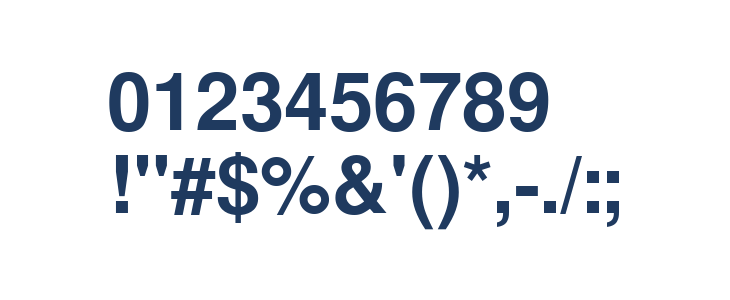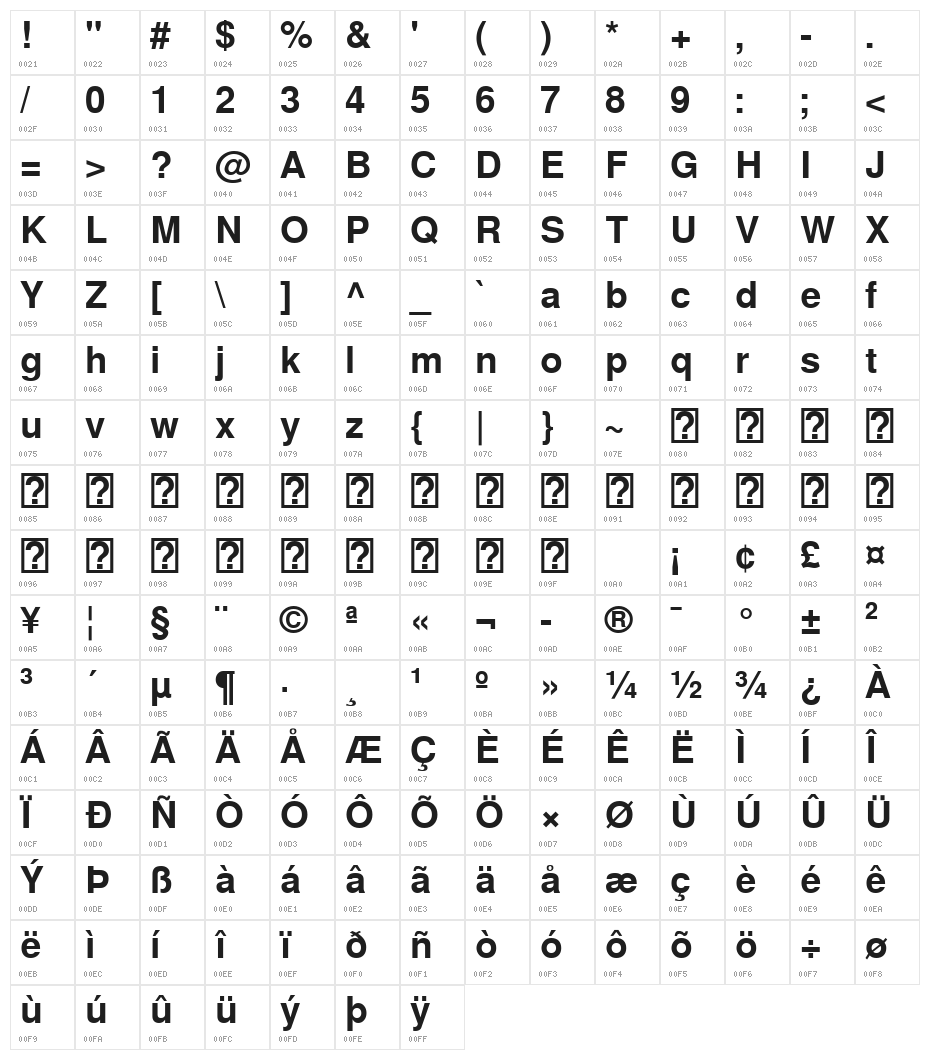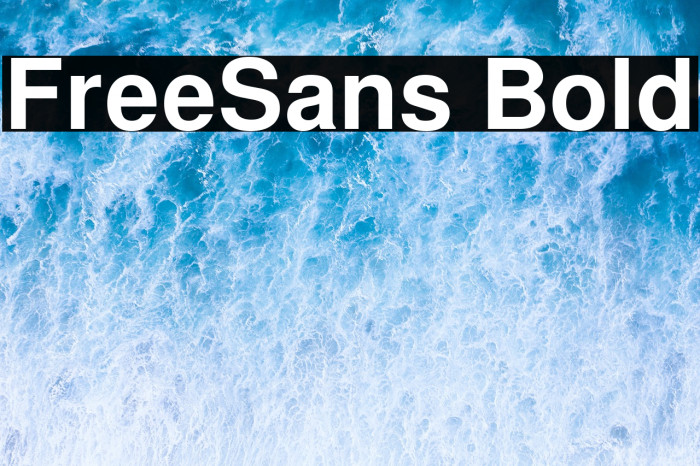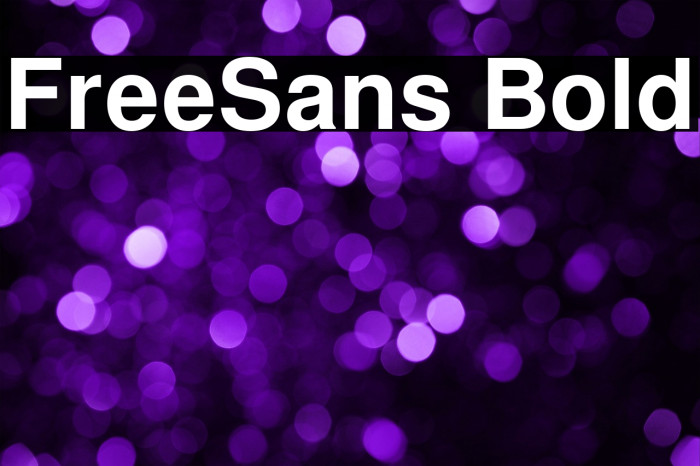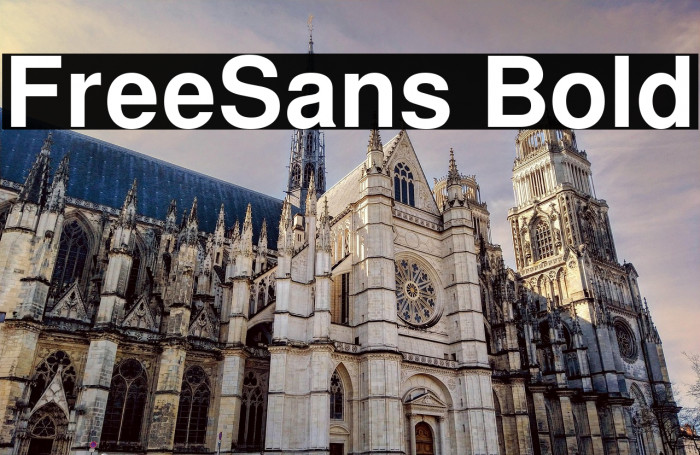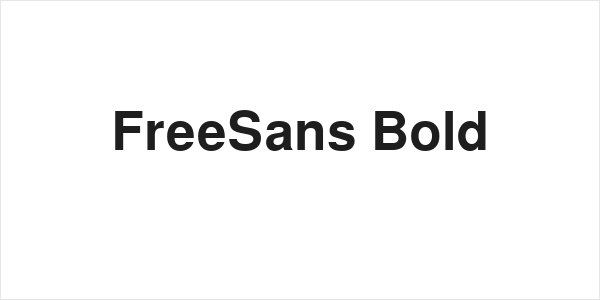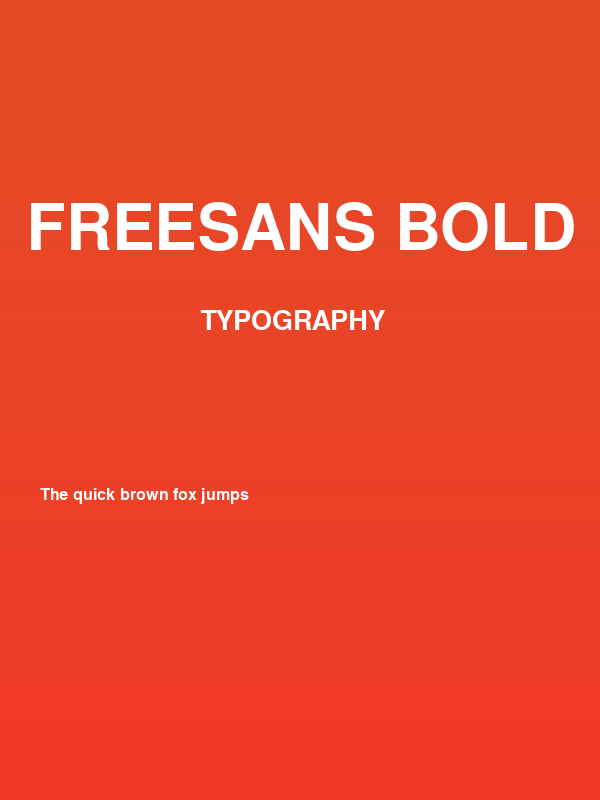
FreeSans Bold Font
FreeSans Bold Description
This font is a bold, sans-serif typeface characterized by its clean and modern appearance. The letters are uniform in width, providing a balanced and harmonious look. The uppercase and lowercase letters are well-proportioned, with a consistent stroke width that enhances readability. The numerals are clear and distinct, making them suitable for various applications. The special characters are designed to complement the overall style, maintaining the font's cohesive appearance. This typeface is versatile, suitable for both digital and print media, and works well in a variety of contexts due to its straightforward and professional design.